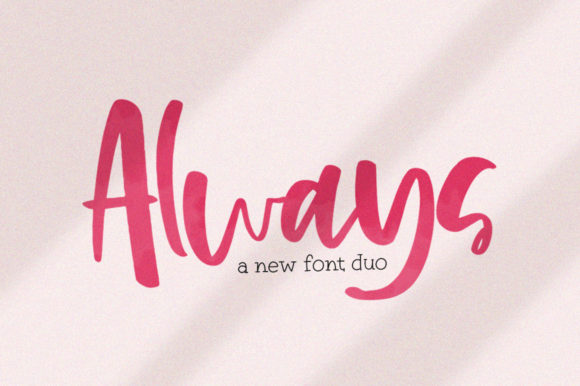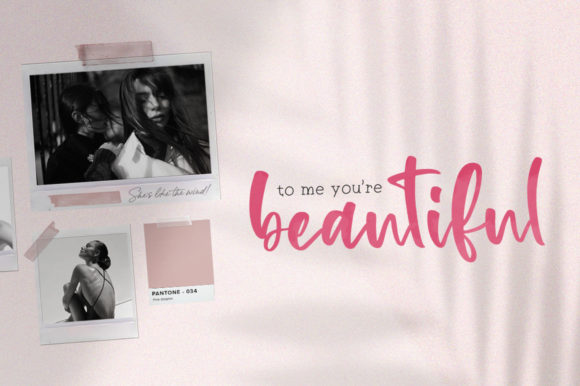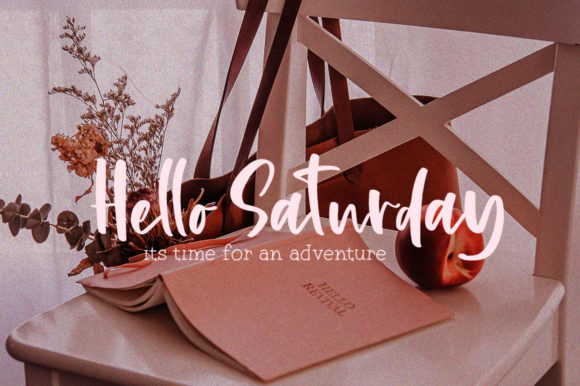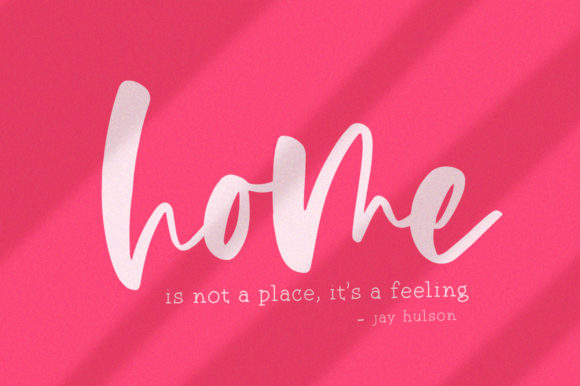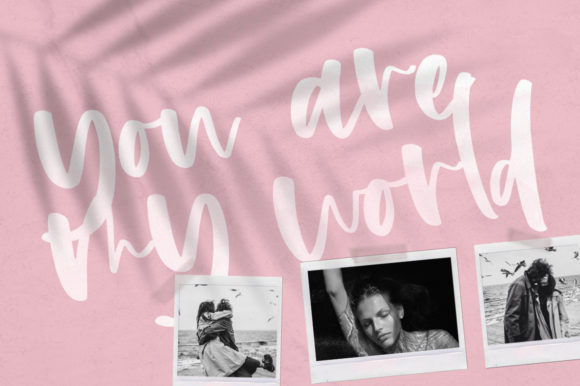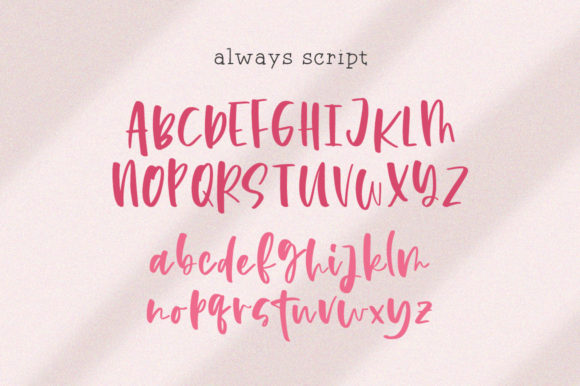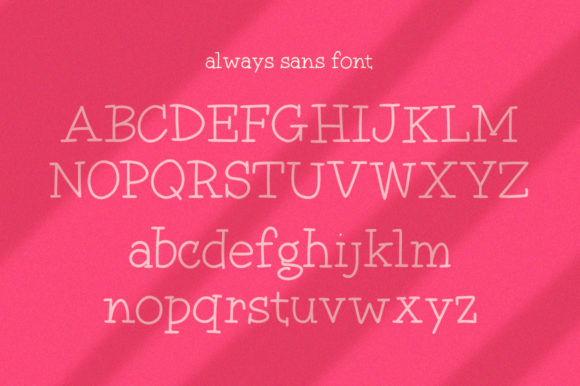
Always Font
About Always Font
Always duo is a match made in heaven. This font simplifies elegance into one truly outstanding handwritten font. Use this gorgeous and unique font to bring any DIY project to life!